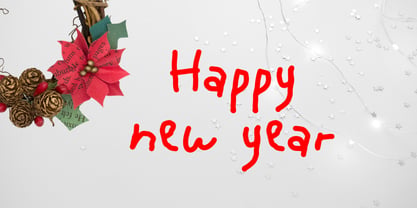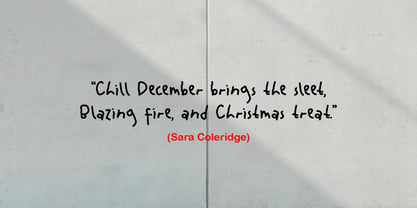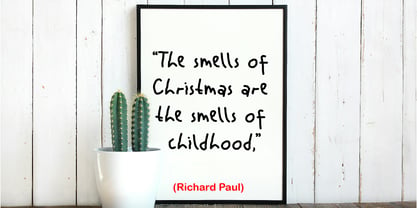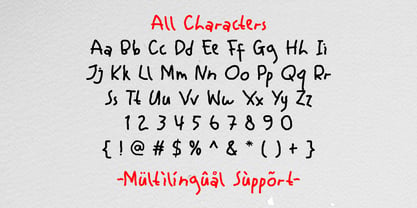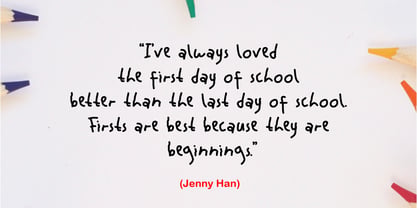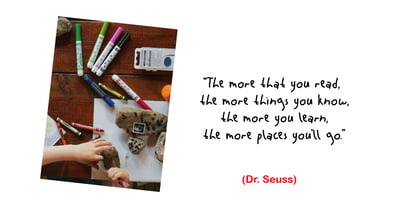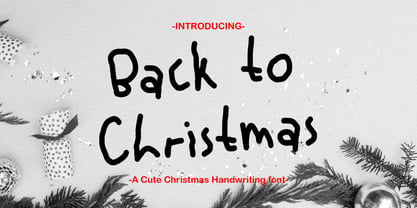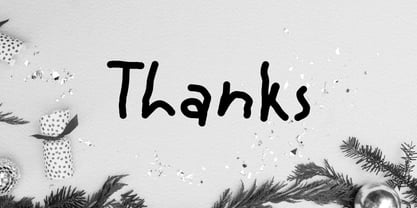
Back to christmas
by Patlot Digital Studio
The Back to christmas Font Family was designed by Gugun Gunawan and published by Patlot Digital Studio. Back to christmas contains 1 styles. More about this family
Immerse yourself in the enchanting allure of the ‘Back to Christmas’ font, a handwritten masterpiece swirling with festive magic. Revitalize your diary with the mystique of childlike awe, breathe personality into your blog, or fashion captivating posters and heartfelt greeting cards that make a memorable impression. Rendered with equal charm on a bespoke t-shirt or woven into a crafty endeavor, this font effortlessly radiates an authentic handwritten allure that captures the quintessence of genuine, personal expression.
Designers: Gugun Gunawan
Foundry: Patlot Digital Studio
About Patlot Digital Studio
Patlot Digital Studio was founded in 2022 and is managed by Gugun Gunawan. I love drawing letters. I want to continue developing my creativity and using my passion to provide greater benefits for myself and the design community. I founded Patlot Digital Studio to help designers choose their projects. I create handwritten fonts, script fonts, and display fonts. Now I pursue my new passion full-time from my home studio.